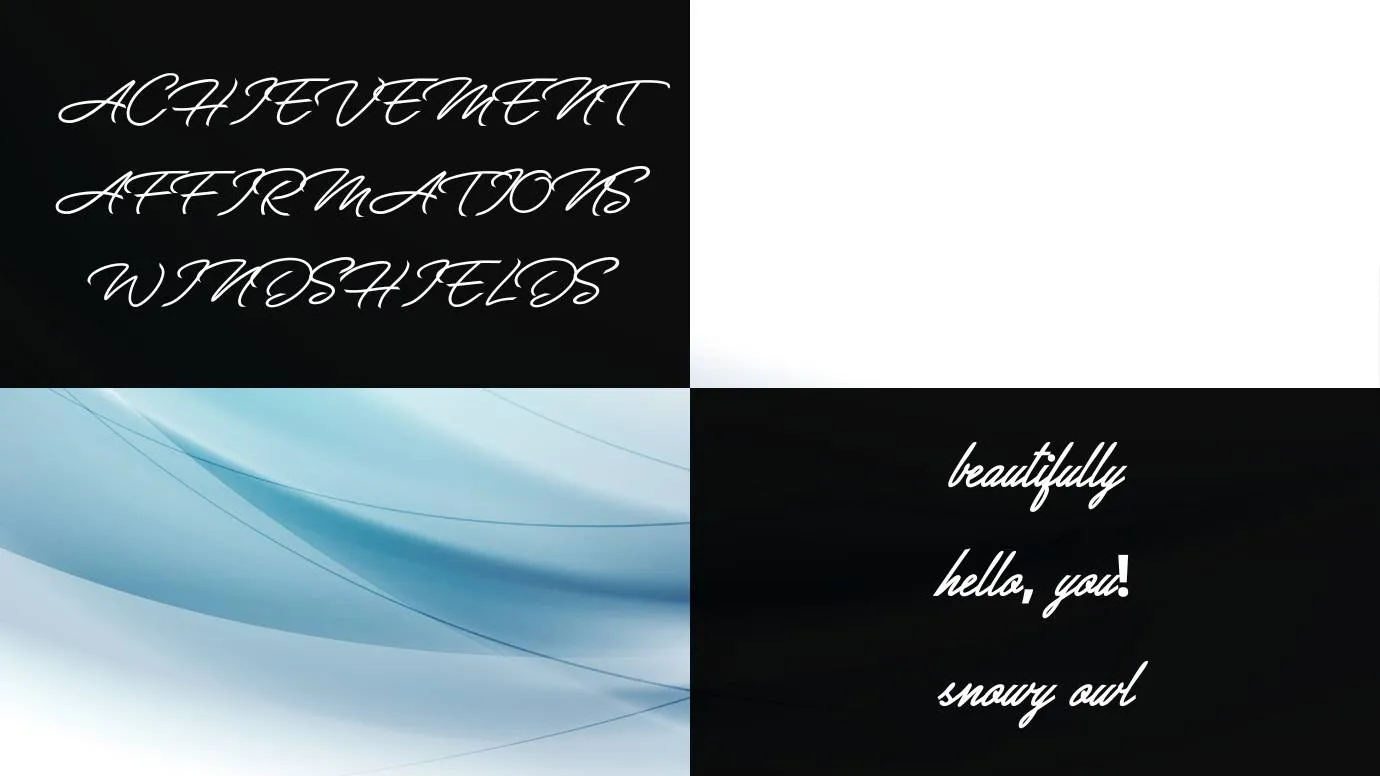
Let us introduce you to an elegant font, Great Day Font is a calligraphy font featuring an interesting texture. The designer has created its texture with a calligraphic style that is clearly visible when we look at the appearance.
If we look at the typeface we can see that the space between letters is tied into it because it is a stylish texture and spaces between letters are quite less just for connecting the letters with each other.
The typeface is one of the coolest, and most amazing that can be paired with a young & beautiful font because the texture is modern and unique. Great Day comes in two weights regular and bold. Each weight has different characters to suit your personal work.
Designer of Great Day Font
Billy Argel took charge of designing and releasing it for the first time in 2016. He is a very versatile designer and known for his creativity.
Great Day is a calligraphy texture featuring an interesting style. The designer has created its design with a calligraphic style that is clearly visible when we look at the appearance.